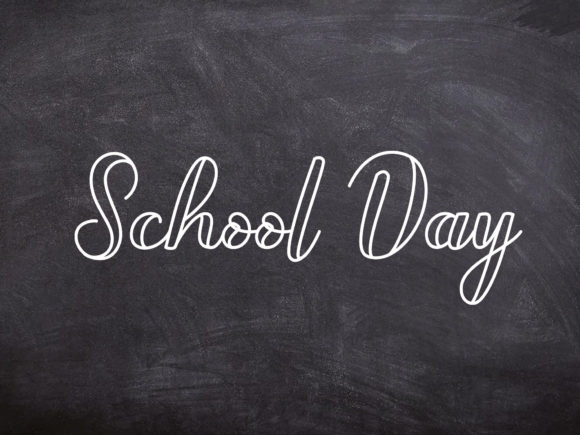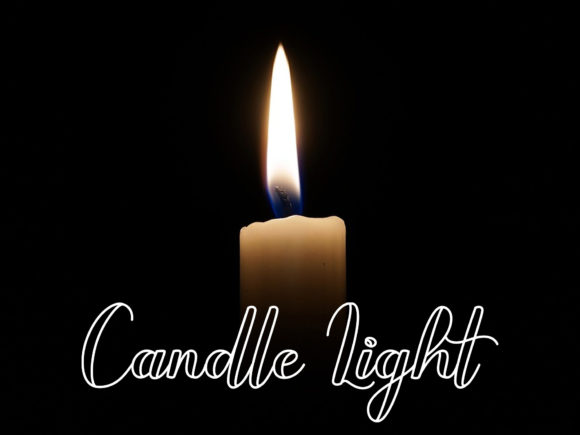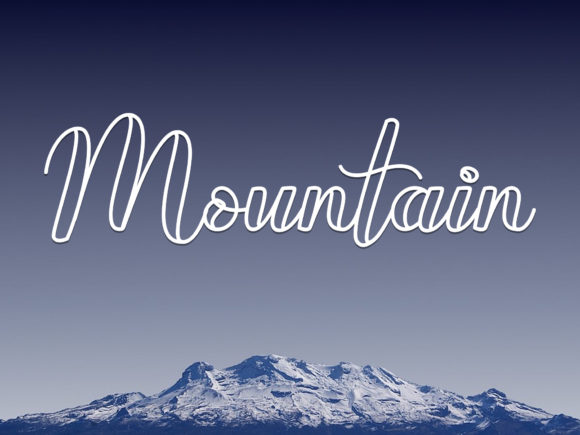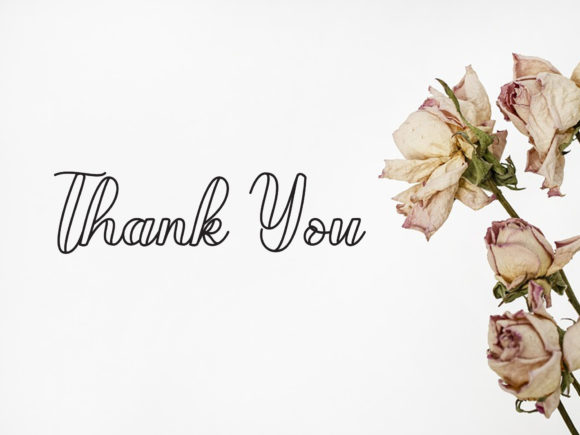
Introducing Chiken Font: A Delicate Handwritten Font for Unique Designs
Are you a designer or crafter looking for a font that can add a touch of elegance and whimsy to your projects? Look no further than Chiken Font, a beautiful handwritten font that is carefully crafted for a cool and unique design. In this article, we’ll take a closer look at Chiken Font, its features, and how you can use it to elevate your designs.
What is Chiken Font?
Chiken Font is a delicate handwritten font that is designed to add a touch of sophistication and charm to your projects. With its elegant and flowing lines, this font is perfect for creating beautiful and eye-catching designs. Whether you’re working on a letter, invitation, food product, title, or any other project, Chiken Font is the perfect choice.
Key Features of Chiken Font
So, what makes Chiken Font so special? Here are some of its key features:
- PUA Encoded: Chiken Font is PUA encoded, which means you can access all of the amazing glyphs and ligatures with ease. This makes it easy to use and customize the font to suit your needs.
- Handwritten Design: Chiken Font has a beautiful handwritten design that is both elegant and whimsical. This makes it perfect for creating unique and eye-catching designs.
- Versatile: Chiken Font can be used for a wide range of projects, including letters, invitations, food products, titles, and more.
- Letters and Invitations: Use Chiken Font to create beautiful and elegant letters and invitations. Whether you’re sending a wedding invitation or a birthday card, this font is sure to impress.
- Food Products: Chiken Font is perfect for food products, such as bakery labels, restaurant menus, and food packaging.
- Titles and Headings: Use Chiken Font to create eye-catching titles and headings for your blog posts, articles, and other written content.
- Crafting and Scrapbooking: Chiken Font is also perfect for crafters and scrapbookers who want to add a personal touch to their projects.
Benefits of Using Chiken Font
So, why should you choose Chiken Font for your designs? Here are some benefits of using this font:
- Unique and Eye-Catching: Chiken Font is a unique and eye-catching font that will set your designs apart from the rest.
- Elegant and Sophisticated: This font has an elegant and sophisticated design that is perfect for creating high-end designs.
- Easy to Use: Chiken Font is easy to use and customize, making it perfect for designers and crafters of all levels.
In conclusion, Chiken Font is a beautiful and versatile font that is perfect for designers and crafters who want to add a touch of elegance and whimsy to their projects. With its delicate handwritten design, PUA encoding, and ease of use, this font is sure to become a favorite in your design arsenal. So why wait? Download Chiken Font today and start creating unique and eye-catching designs!
- What is Chiken Font? Chiken Font is a delicate handwritten font that is carefully crafted for a cool and unique design.
- Is Chiken Font PUA encoded? Yes, Chiken Font is PUA encoded, which means you can access all of the amazing glyphs and ligatures with ease.
- What can I use Chiken Font for? Chiken Font can be used for a wide range of projects, including letters, invitations, food products, titles, and more.